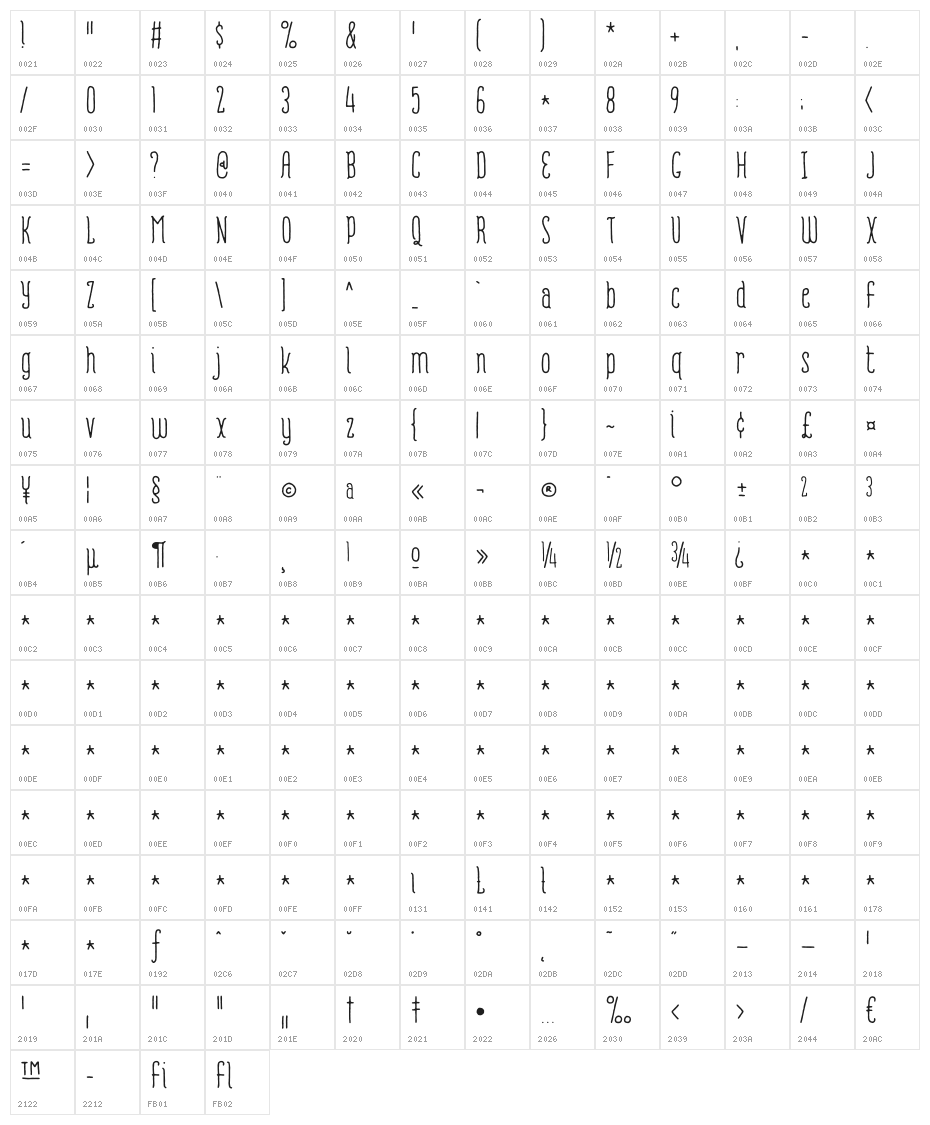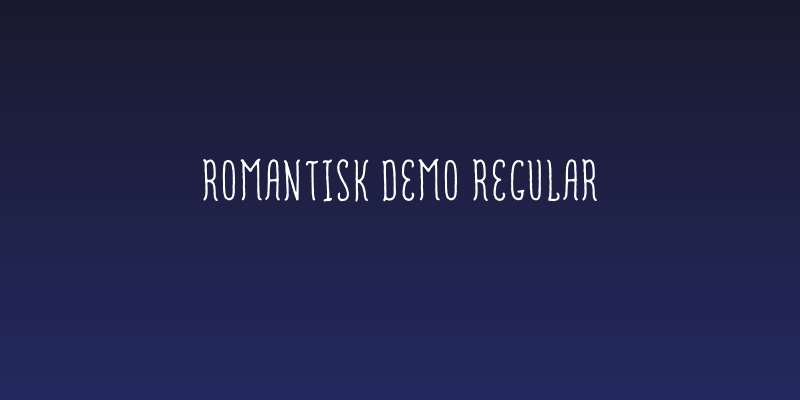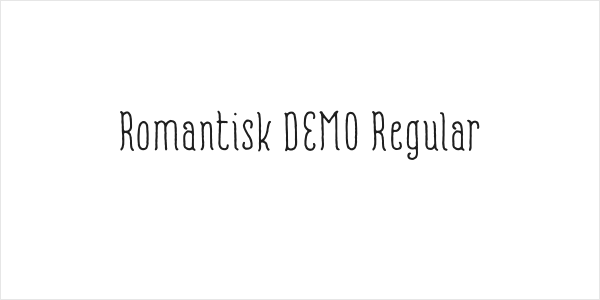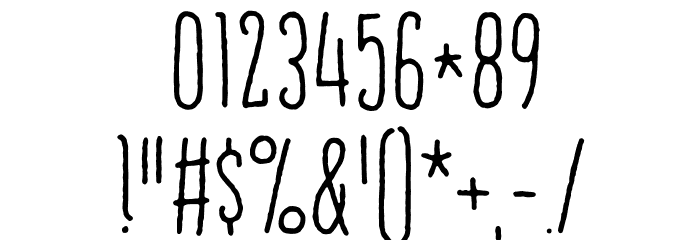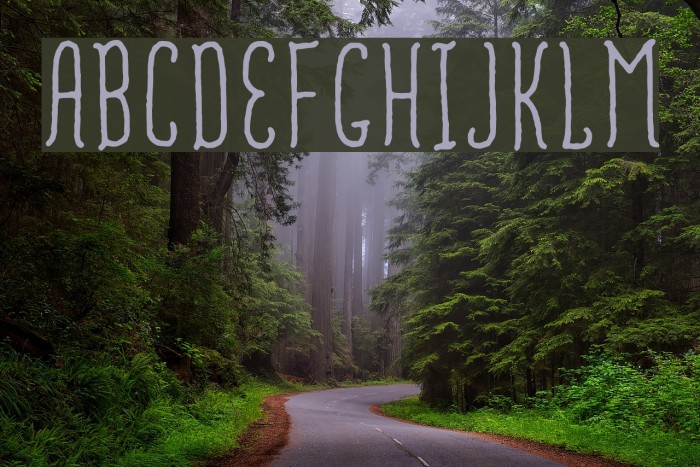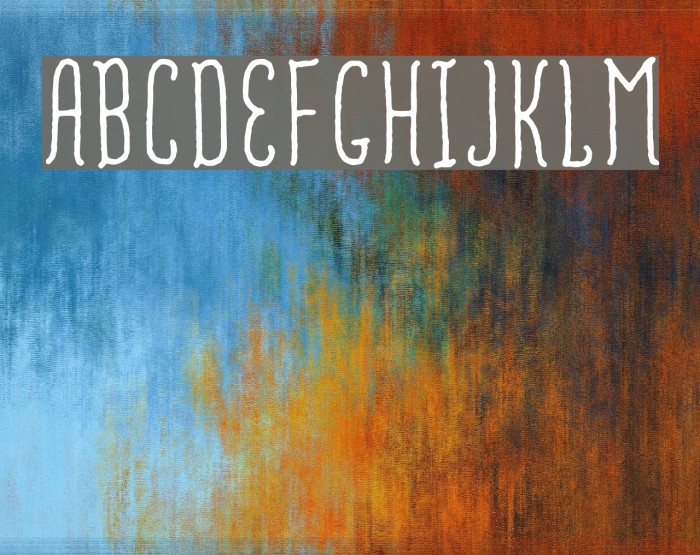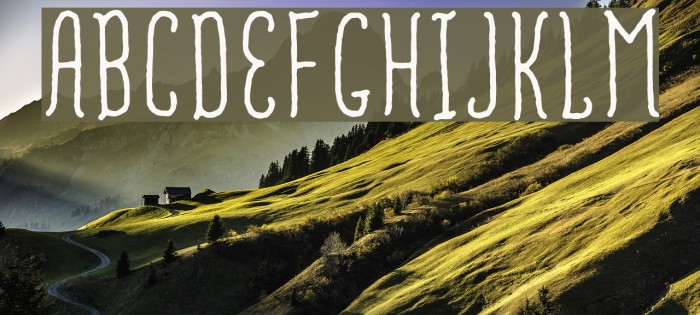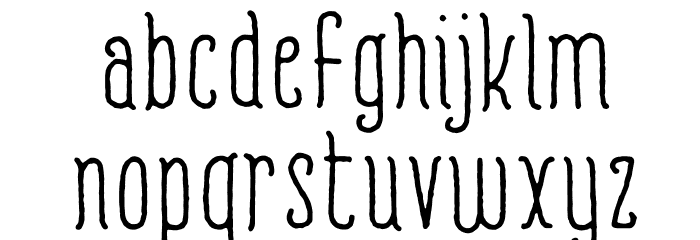
Romantisk DEMO Regular Font
Romantisk DEMO Regular Description
This font features a whimsical and handwritten style, characterized by its elongated and slightly irregular letterforms. The strokes are uneven, giving it a charming, hand-drawn appearance. The uppercase and lowercase letters maintain a consistent height, while the numerals and special characters blend seamlessly with the overall aesthetic. The font's playful nature makes it suitable for creative and informal applications, adding a personal touch to any design.
| Use Case | Logos, Headlines, Creative projects |
| Proposed Projects | Ideal for greeting cards, invitations, children's books, and creative branding projects. |